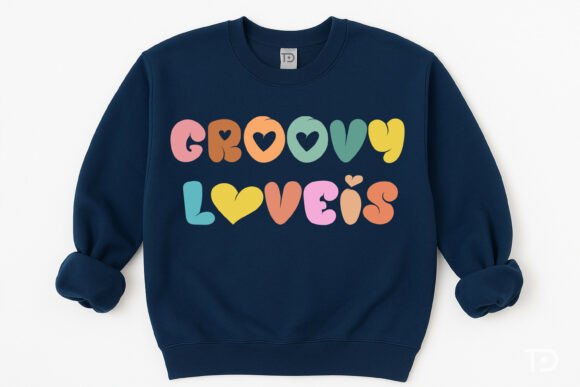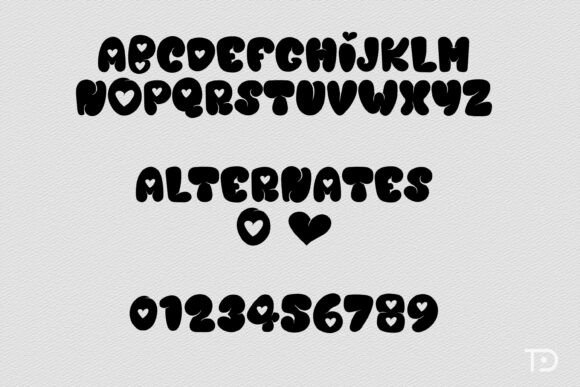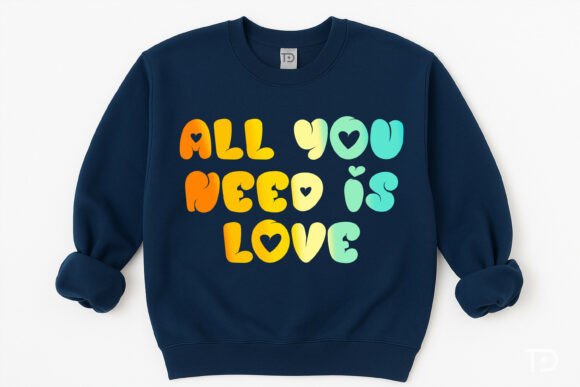
Introducing Groovy Loveis: The Ultimate Valentine Display Font for Festive Creations
Are you looking for a font that embodies the spirit of festivities and injects a playful yet elegant aura into your holiday-inspired projects? Look no further than Groovy Loveis, a charming Valentine display font that’s sure to become an essential part of your creative endeavors. In this article, we’ll dive into the wonderful world of Groovy Loveis and explore its endless possibilities for designers, crafters, and anyone looking to spread love and cheer during the holiday season.
A Font that Bursts with Joviality and Warmth
Groovy Loveis is more than just a font – it’s an experience. With its unique blend of playfulness and sophistication, this font is designed to capture the essence of festivities and bring joy to your projects. Whether you’re creating Christmas-themed t-shirt patterns, mug designs, digital artworks, crafts, or greeting cards, Groovy Loveis is the perfect companion to help you spread love and cheer.
One of the most exciting things about Groovy Loveis is its versatility. This font can be used in a wide range of creative projects, from:
- Christmas-themed t-shirt patterns and designs
- Mug designs and water bottle labels
- Digital artworks and illustrations
- Crafts, such as papercrafts, scrapbooking, and card making
Whether you’re a professional designer or a crafter looking for a unique touch, Groovy Loveis is the perfect addition to your project. Its playful and elegant design ensures that your creations will stand out from the crowd and leave a lasting impression.
Why Groovy Loveis is the Ideal Finishing Touch
So, what sets Groovy Loveis apart from other fonts? Here are just a few reasons why it’s the ideal finishing touch for your holiday-inspired projects:
- Playful yet elegant design: Groovy Loveis strikes the perfect balance between playfulness and sophistication, making it suitable for a wide range of creative projects.
- Unique and eye-catching: This font is sure to grab attention and leave a lasting impression on your audience.
- Easy to read and use: Despite its playful design, Groovy Loveis is easy to read and use, making it perfect for both digital and print projects.
Tips and Tricks for Using Groovy Loveis
To get the most out of Groovy Loveis, here are a few tips and tricks to keep in mind:
- Experiment with different colors and textures: Groovy Loveis looks great in a variety of colors and textures, so don’t be afraid to experiment and find the perfect combination for your project.
- Pair it with other fonts: Groovy Loveis can be paired with other fonts to create a unique and eye-catching design.
- Use it in combination with graphics and illustrations: This font looks great in combination with graphics and illustrations, making it perfect for digital artworks and crafts.
In conclusion, Groovy Loveis is a charming Valentine display font that’s sure to become an essential part of your holiday-inspired creative endeavors. With its playful yet elegant design, endless possibilities for use, and easy readability, this font is perfect for designers, crafters, and anyone looking to spread love and cheer during the holiday season. So why wait? Download Groovy Loveis today and start creating your own festive masterpieces!